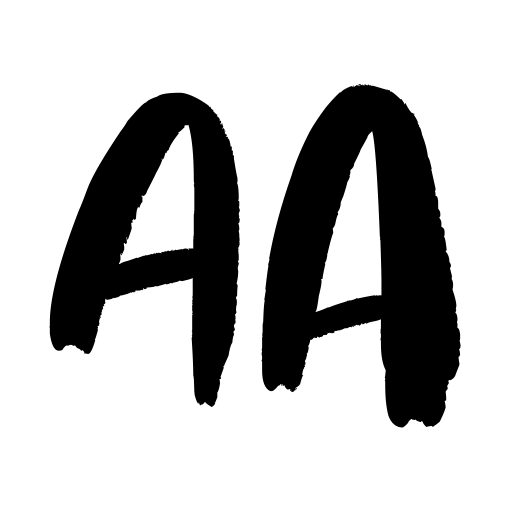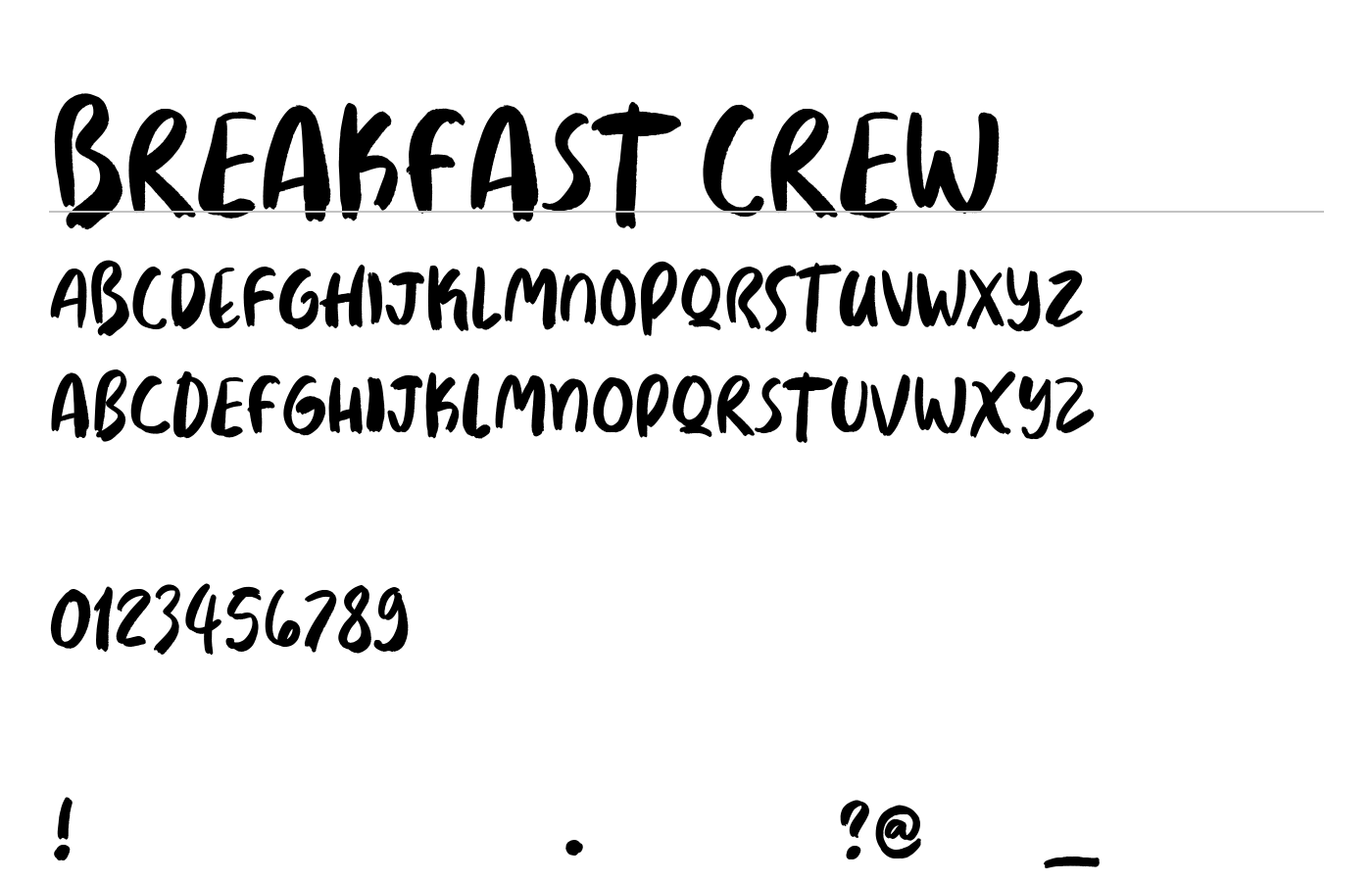
Breakfast Crew is a bold, casual handwritten font with a lively, brush-stroke texture that brings an energetic and approachable vibe. Its uneven, playful letterforms and strong personality make it perfect for creative projects like posters, branding, and social media where a friendly, spirited touch is needed. This font works well in headlines and display text, adding a sense of fun while maintaining good readability.
Breakfast Crew Font
About Breakfast Crew Font
| Font family | Breakfast Crew Font |